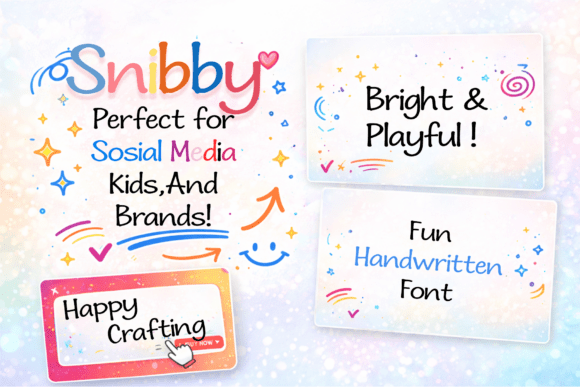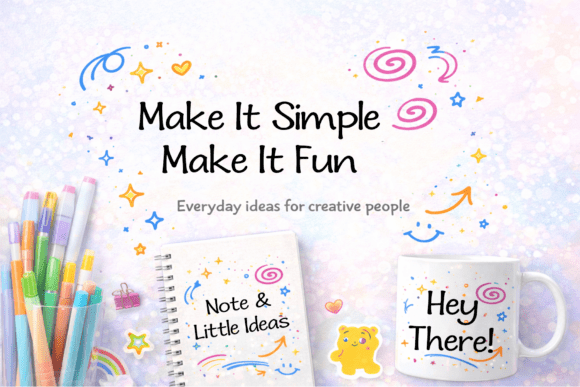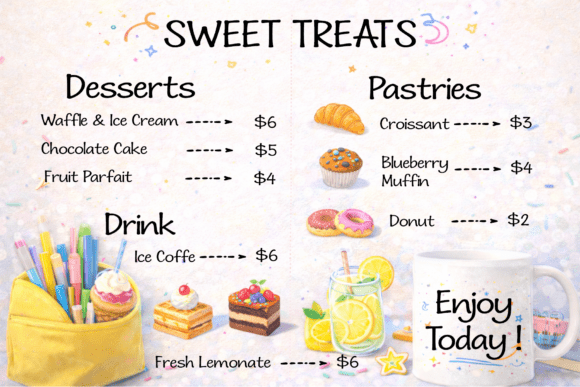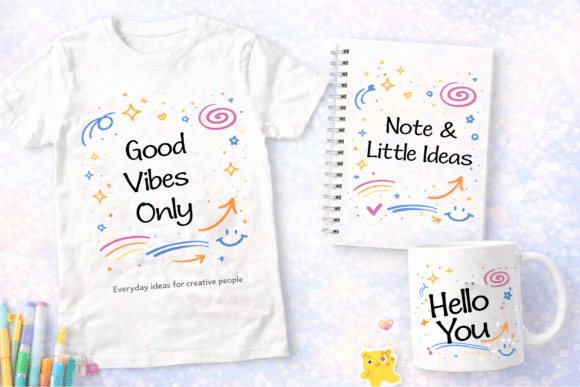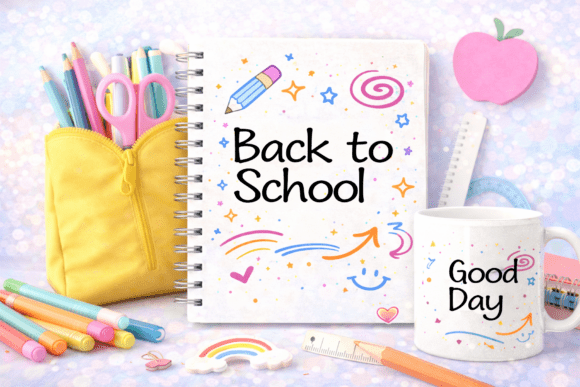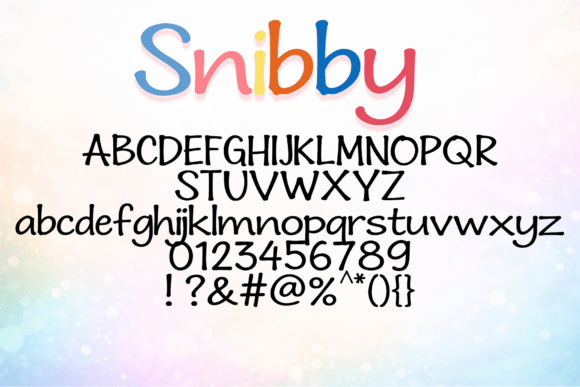
Introduction to Snibby Font
Do you remember the thrill of crafting your first handmade card or the excitement of creating a DIY project with your little ones? The joy of bringing an idea to life and seeing the smile on someone’s face is a feeling like no other. As creatives, we’re always on the lookout for the perfect tools to help us infuse our projects with personality and charm. That’s where the Snibby Font comes in – a zesty handwritten typeface designed to add a dash of exuberance to your every creation.
With its delightful blend of rounded, polished, and expressive glyphs, the Snibby Font is a game-changer for designers. Whether you’re working on a social media post, a poster, or a branding project, this versatile font is sure to add a touch of whimsy and fun. And the best part? It’s incredibly easy to use and maintains a high level of legibility, making it a valuable resource for any creative project.
Key Features of Snibby Font
- Designed with a focus on legibility and readability, making it suitable for both digital and print applications.
- Includes a range of weights and styles, providing flexibility for designers to create visually appealing typography.
Honest Review: Snibby Font
I recently had the chance to work with the Snibby Font, and I must say, I was quite impressed. As a designer, I’m always on the lookout for high-quality design resources to enhance my creative projects. The Snibby Font did not disappoint.
Here are some of the things that work well with the Snibby Font: ✨
- Beautiful, modern design that adds a touch of sophistication to any project
- High-quality typography that’s perfect for both print and digital designs
- Easy to use and customize, making it a great addition to any design workflow
However, I did encounter a few limitations with the Snibby Font: ⚠️
- Unfortunately, the font does not support transparent background, which can be a limitation for some designers
- The font library is not as extensive as some other font collections, which may limit its versatility
Overall, I would highly recommend the Snibby Font for any designer looking to add a touch of elegance to their creative projects. While it may have some limitations, its high-quality design and ease of use make it a valuable addition to any design resource library.
Tips for Getting the Most Out of Snibby Font
Experiment with different font sizes and styles to create visually appealing designs. Use the transparent background feature to create seamless compositions with images. Combine Snibby Font with other design resources to create a unique look for your creative project.
Snibby Font is ideal for designing business cards, brochures, and other marketing materials. It’s also great for creating digital content, such as social media graphics and blog posts. Its high-quality design makes it perfect for any creative project that requires a professional touch.